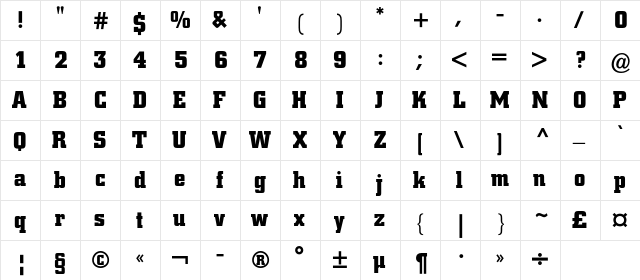
ColiseumBlackC Regular
Design Context for ColiseumBlackC Typeface
ColiseumBlackC offers clean, dependable letterforms without strong stylistic allegiance, making it a practical choice for designers who need flexibility.